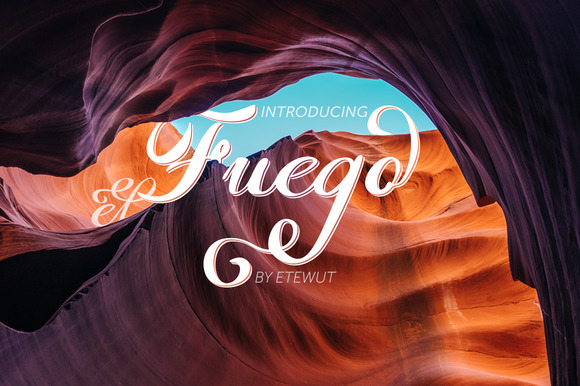
Prepare yourself to be enveloped by the strokes of elegance and beauty that is the Fuego Font, crafted with meticulous care by the esteemed Etewut. With its gracefully curved letters and an array of captivating swashes, Fuego stands as a testament to the boundless artistry of its creator.
Indulge in the allure of a font that dances across your screen, its characters intertwined like ribbons in a gentle breeze. Whether you seek to adorn your wedding invitations with a touch of sophistication or bestow upon your handcrafted creations a breath of uniqueness, Fuego's versatility knows no bounds.
With its effortlessly readable nature, Fuego extends its charm to even the most discerning of readers, making it the perfect choice for heartfelt messages on wooden signs or the creation of striking word art.
Unleash the boundless potential of the Fuego Font, an enchanting symphony of design that awaits your creative touch. Embark on a journey where imagination flourishes and expression knows no limits.